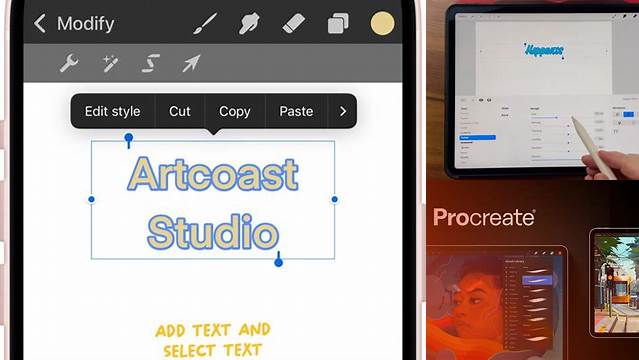
Procreate Fonts: Easy Guide To Adding & Using New Fonts
Adding Custom Fonts in Procreate: A Step-by-Step Tutorial
Alright, digital artists! Let's dive headfirst into the exciting world of typography in Procreate! Adding new fonts to Procreate is a game-changer, trust me. It opens up a universe of creative possibilities, allowing you to personalize your artwork, create stunning lettering, and even design custom logos with ease. The best part? It's not nearly as complicated as you might think! This step-by-step tutorial will walk you through the entire process, from downloading fonts to installing them in your Procreate app. First things first, you'll need to find some fonts you love. There are tons of websites offering free and premium fonts – sites like Google Fonts, DaFont, and Font Squirrel are excellent places to start. Remember to check the license for each font to make sure you can use it for your intended purpose (personal or commercial use). Once you’ve chosen your fonts and downloaded the files (usually in .ttf or .otf format), you're ready for the next phase. Now, the fun part: installing those beautiful fonts onto your iPad. This is where Procreate's user-friendly interface comes into play. You won't need any fancy software or complicated procedures; it's designed to be smooth and simple. You can do it in a few different ways, the first method is through the Files app. Locate your downloaded font files (usually in the 'Downloads' folder), tap on them, and then tap the share icon. From the share sheet, scroll to find and select 'Procreate'. Procreate will then automatically install the font, and you'll be ready to go! Alternatively, if you’re using a zip file, you’ll need to unzip the font files first. This is usually done by tapping on the zip file in the Files app, which will create a new folder. Then, follow the same process as above: tap the font file, share, and select Procreate. If this doesn't work, a third-party app may be needed to unzip the files. Now, you can start using the fonts in your artwork. Open Procreate, create a new canvas, and select the 'Text' tool (the 'A' icon). Type in your text, and then tap on the font name in the text editing menu. You’ll find your newly installed fonts listed there, ready to be used. Select your desired font, adjust the size, spacing, and other settings, and voila – your text will transform with your new font! You can repeat the steps above to add more fonts to your Procreate app at any time.
Troubleshooting Common Issues When Adding Fonts to Procreate
Sometimes, things don't go according to plan. Adding new fonts to Procreate should be a breeze, but occasionally, you might encounter some hiccups. Don't worry; these issues are usually easily resolved. One common problem is compatibility. Procreate supports .ttf and .otf font files, but older or corrupted font files might not work. If a font doesn't appear in your list after installation, double-check that the font file is in one of these formats. Another thing to look out for is font file corruption. Sometimes, when downloading fonts, the files can become corrupted during the download process. Try downloading the font again from the original source or from another website to ensure a clean download. Another potential issue is that you may accidentally miss the share option. Sometimes, if you are not in the 'Files' app, the sharing option may not be available in the way it needs to be. If your font files are in a compressed file format, you’ll need to unzip them before Procreate can recognize them. Always extract the fonts from the zip file and then try sharing them with Procreate. If you're still having trouble, make sure you have the latest version of Procreate installed. Updates often include bug fixes and improved compatibility. Check the App Store for updates, and make sure your iPad's operating system is also up-to-date. Also, make sure that you haven't reached the maximum number of fonts that Procreate can support. While Procreate can handle many fonts, there might be a limit. Try removing some fonts that you don't use to see if that resolves the issue. If all else fails, try restarting your iPad and Procreate app. This simple step can often clear up any temporary glitches that might be interfering with the font installation process. If you've tried all of these troubleshooting steps and are still experiencing problems, consider contacting Procreate's support team for more specialized assistance. They're usually very helpful in resolving any technical issues. And most importantly, be patient! Experiment, and don’t be afraid to try different solutions until you find what works for you.
Tips for Choosing the Right Fonts for Your Procreate Projects
Choosing the right fonts when you're adding new fonts to Procreate can significantly impact the overall look and feel of your artwork. Whether you're creating illustrations, lettering, or designs for clients, the fonts you choose will communicate a message and set the tone. Let’s go through some tips for choosing the right fonts! First, consider your project's purpose and audience. Ask yourself: What is the goal of this project? Who is the intended audience? The answers to these questions will guide your font selection. For instance, if you're designing a children's book cover, you might choose a playful and friendly font. For a professional business logo, you might opt for a clean and modern sans-serif font. Remember, different fonts evoke different emotions and convey different messages. Next, think about the overall style and theme of your artwork. Does your artwork have a vintage feel? A modern aesthetic? A minimalist approach? Choose fonts that complement your style. If you're aiming for a classic look, consider using a serif font. If you want a modern vibe, a sans-serif font might be more suitable. Consider pairing fonts. You don't have to stick to just one font in your designs. Pairing fonts can add visual interest and create a balanced design. A good rule of thumb is to combine a serif font with a sans-serif font, or a bold font with a lighter font. Choose fonts that complement each other and work well together. There are many font pairing guides available online that can help you make informed decisions. Furthermore, focus on readability. The most beautiful font is useless if it's hard to read. Make sure your chosen fonts are legible, especially if you're using them for body text or important information. Consider the size and spacing of the text when making your selection. Test out different sizes and see how well the font reads at each size. Don't be afraid to experiment with different fonts. Try out various combinations and see how they look in your artwork. Try several variations of the fonts to see what works best. Use the text tool to preview different fonts and sizes, and adjust spacing and alignment until you are happy with the results. Finally, look for inspiration. Browse through other artists' work, design blogs, and websites to get ideas for font combinations and styles. Pay attention to how fonts are used in different designs and take note of the fonts that appeal to you. Create a mood board of fonts that you love, and use it as a reference when choosing fonts for your projects. Selecting the right fonts is an ongoing learning process. Experiment, have fun, and don't be afraid to try new things.
Font Management in Procreate: Organizing Your Font Library
Managing your font library is key when you are adding new fonts to Procreate. As you add more and more fonts, keeping everything organized becomes essential for staying creative and productive. It's very easy to accumulate a vast collection of fonts, but without proper organization, finding the perfect font for your project can quickly become a frustrating chore. Here’s how to organize your font library in Procreate. The first step is to create a system for organizing your fonts. Consider grouping fonts based on their style, function, or the projects you use them for. You could create categories such as